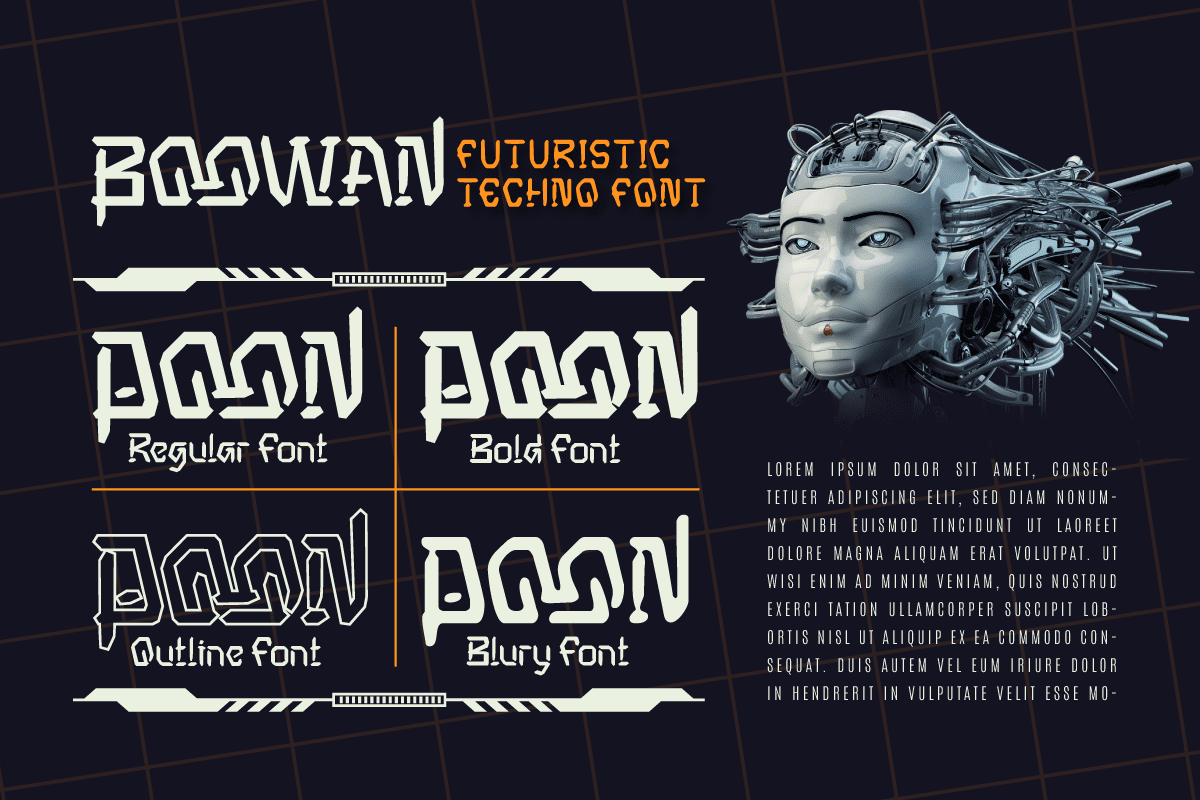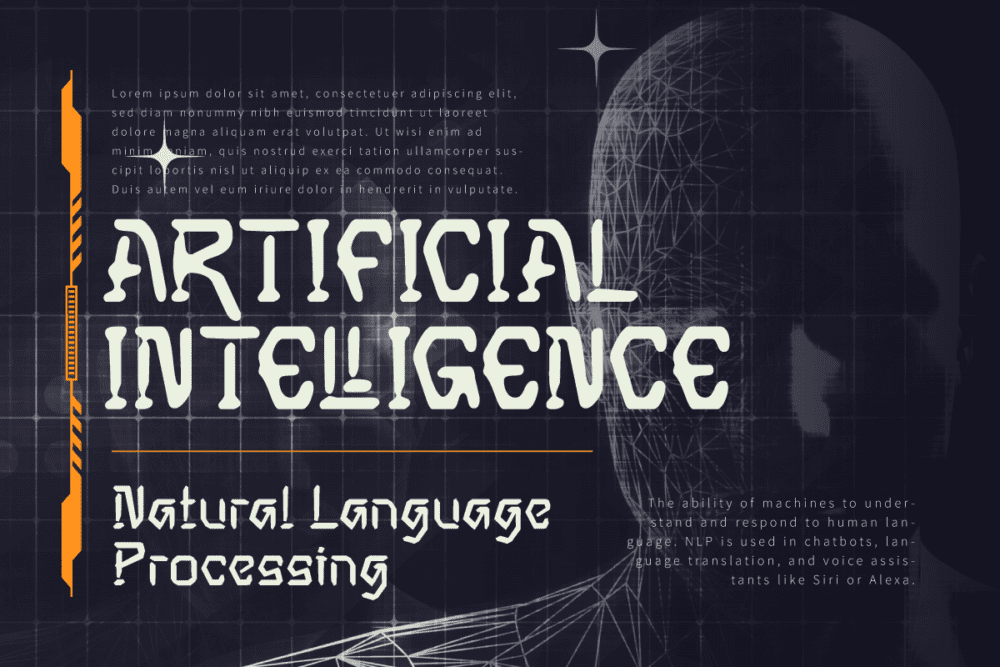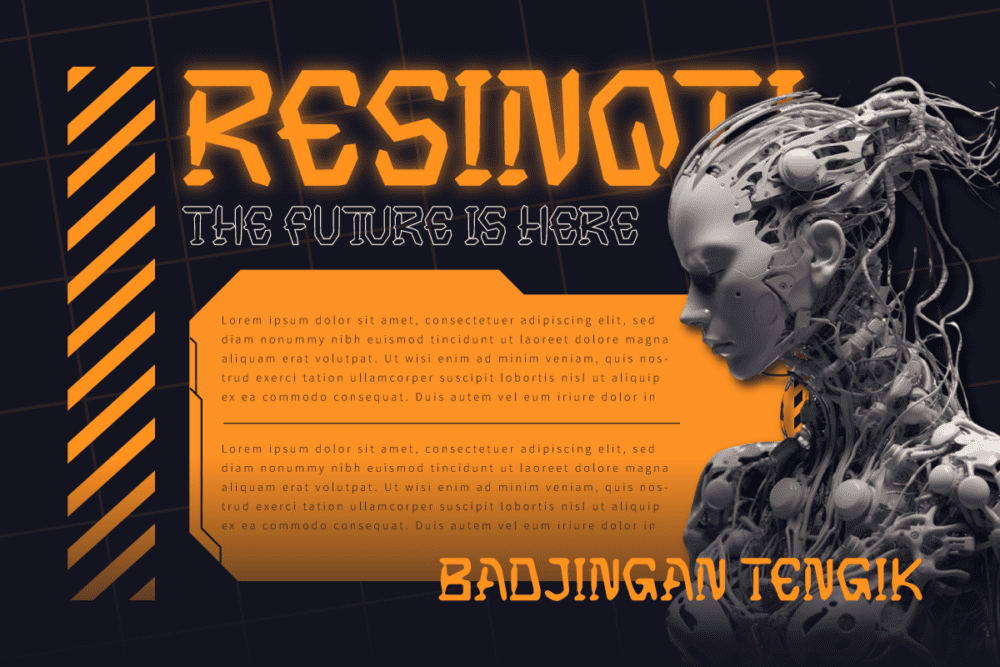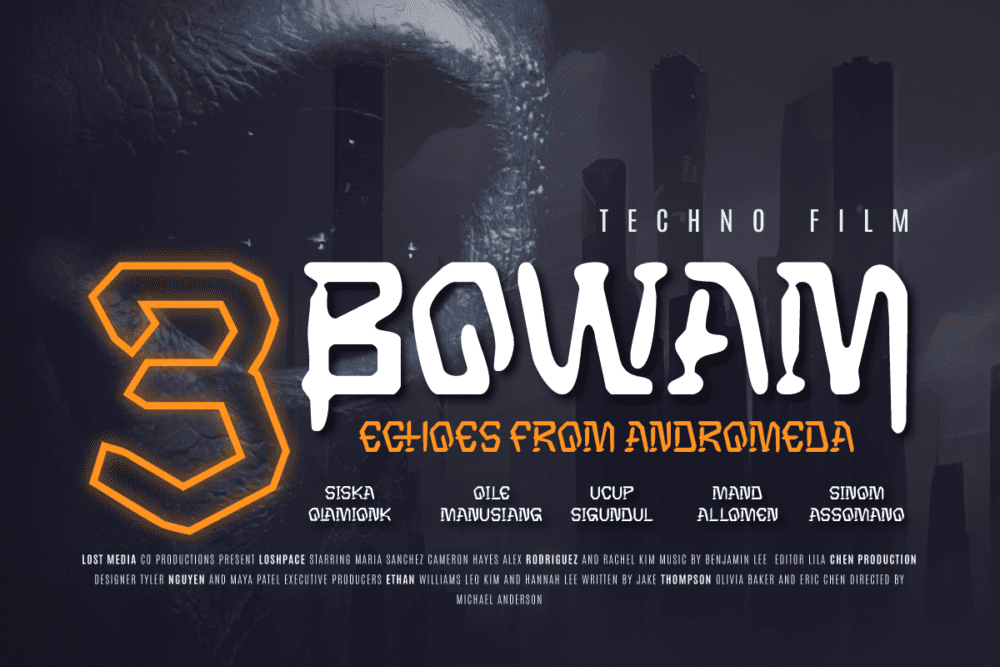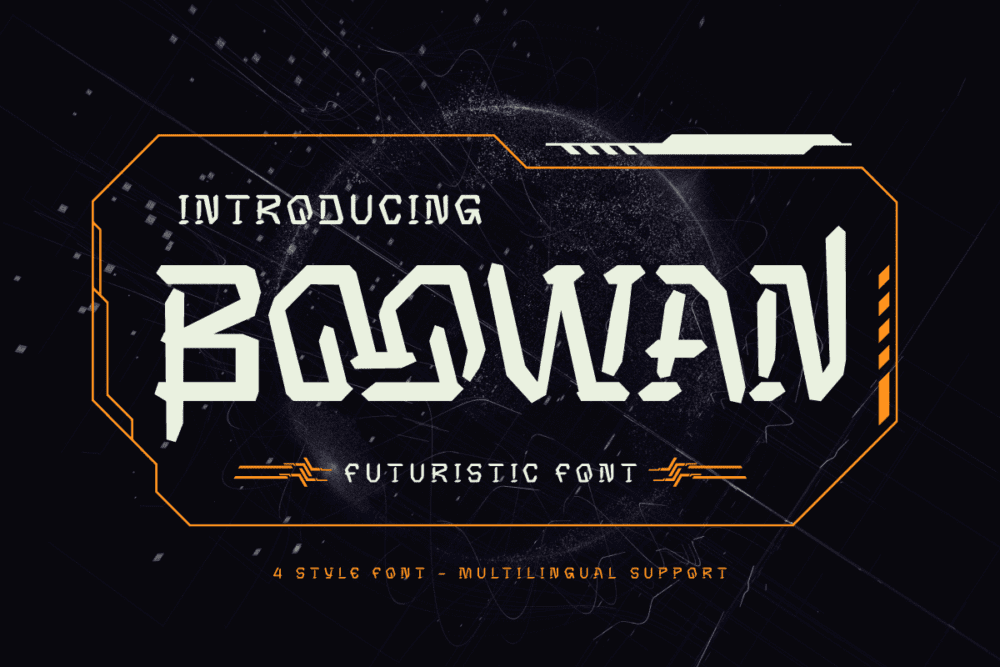
Boowan Font
Boowan font is a playful and quirky typeface, bursting with personality and charm. Its rounded edges and whimsical strokes give it a friendly, approachable vibe, making it perfect for children’s projects, logos, and creative branding. Boowan’s unique, hand-drawn aesthetic adds a touch of fun and creativity, ensuring your designs stand out with a cheerful, lighthearted flair.